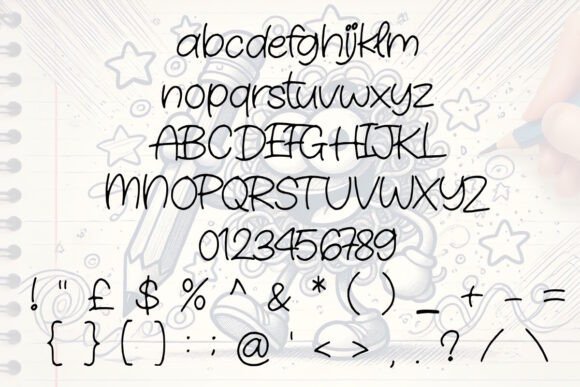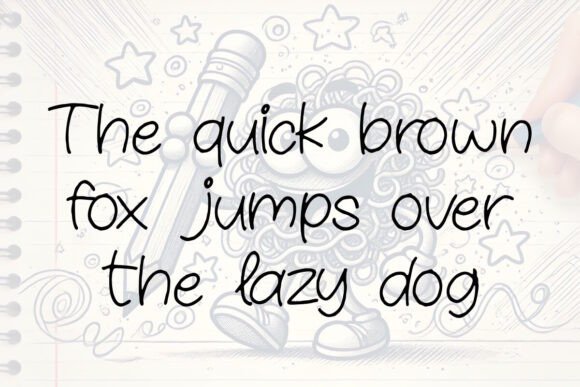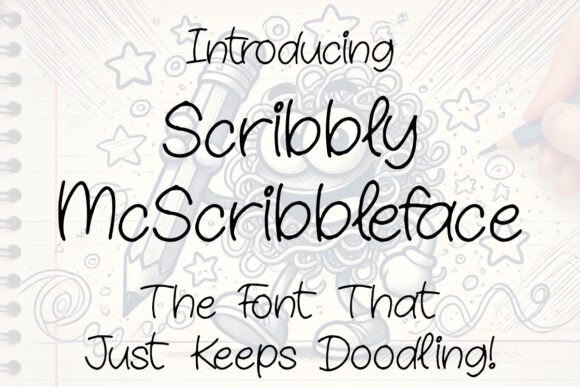
Introduction to Scribbly Mcscribbleface Font
Scribbly McScribbleface is a delightfully casual, slightly wobbly, and effortlessly cool handwritten font.
Itโ€™s the typography equivalent of doodling on your notebook instead of paying attentionโ€”imperfect, playful, and full of personality Whether youโ€™re designing for fun projects, quirky branding, or just embracing the chaos, this font has you covered.
Why Choose Scribbly Mcscribbleface Font?